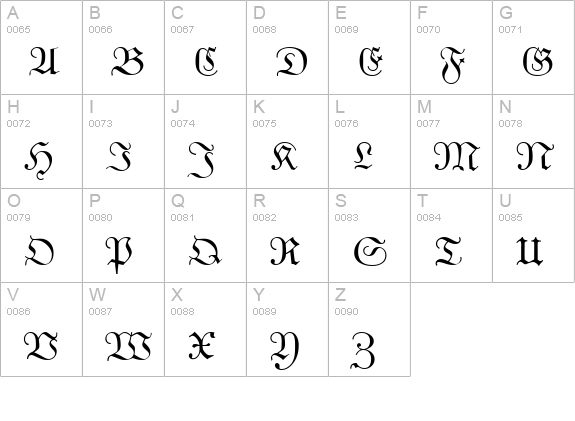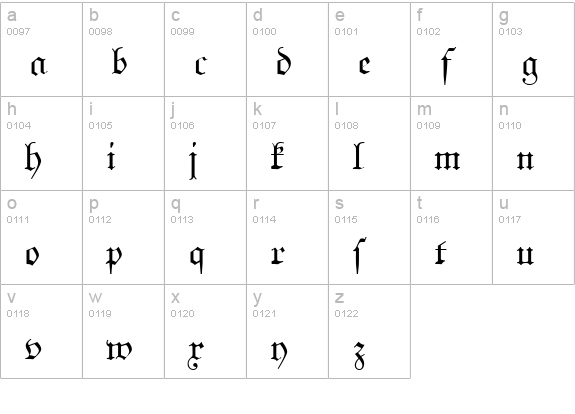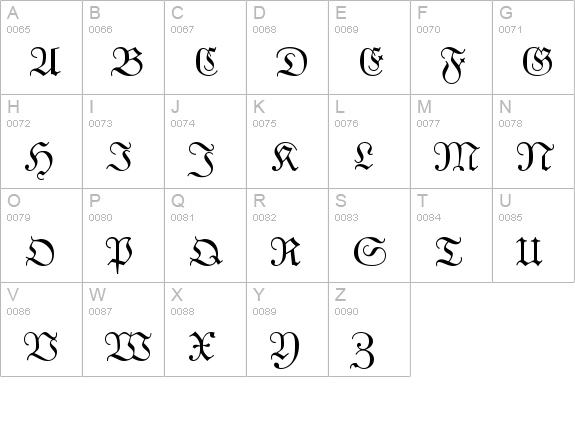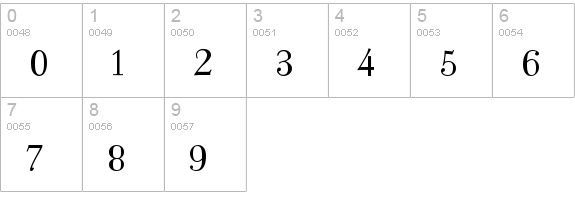
JohannFraktur-Regular is the standard, neutral variant in the JohannFraktur typeface family \xE2\x80\x94 well suited to general body text, paragraphs, and standard typographic work.
JohannFraktur-Regular is a stunning and elegant font that exudes a timeless charm and classical sophistication. With its intricate details and traditional appeal, this font is perfect for adding a touch of vintage elegance to your designs. Its gracefully flowing lines and sharp edges create a sense of refinement and style that is unmatched. What's even better is that JohannFraktur-Regular is available for free download at FontsMarket.com! This means that you can easily access this beautiful font and use it in your projects without any cost. Whether you're working on invitations, posters, labels, or any other creative endeavor, JohannFraktur-Regular will elevate your work with its unique beauty and character. Don't miss out on this incredible opportunity to enhance your designs with the exquisite JohannFraktur-Regular font. Download it for free today at FontsMarket.com and start creating stunning pieces that stand out from the rest.